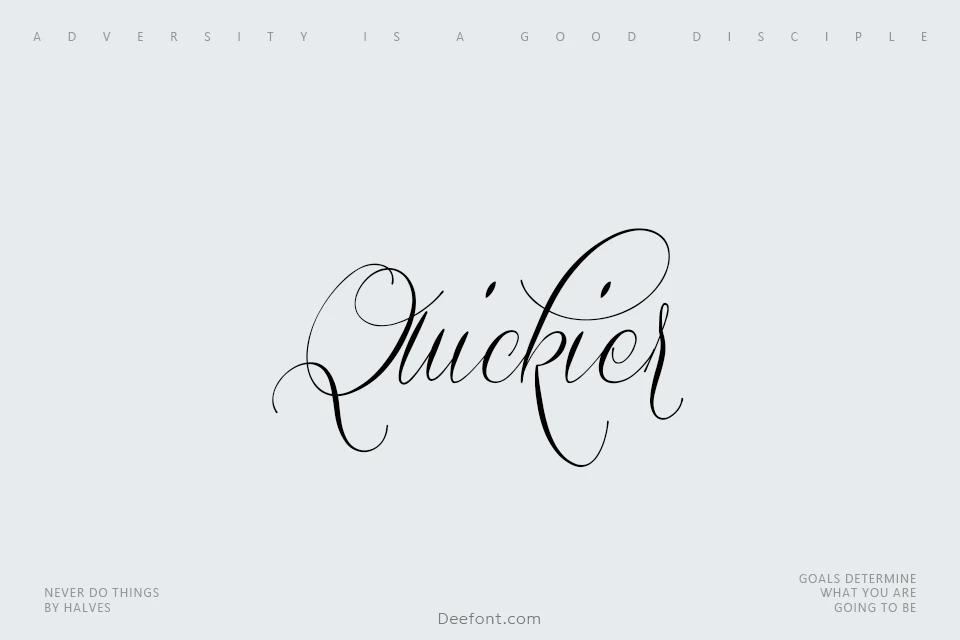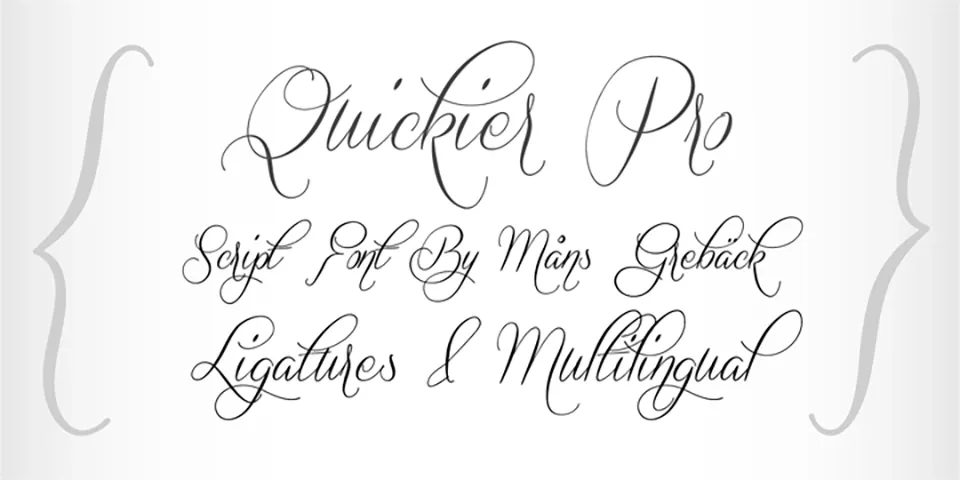
Quickier Font
Quickier is an elegant script font designed by renowned type designer Måns Grebäck. This refined calligraphy typeface combines flowing curves with precise letterforms, perfect for creating sophisticated typography. Originally released in 2012, Quickier has become a popular choice for tattoo designs, logos, and creative headlines. The font features smooth, hand-crafted strokes that convey elegance and artistry, making it ideal for brands seeking a distinctive, polished aesthetic. With its versatile character set and professional appeal, Quickier delivers beautiful, eye-catching results for design projects that demand sophistication and creative expression.